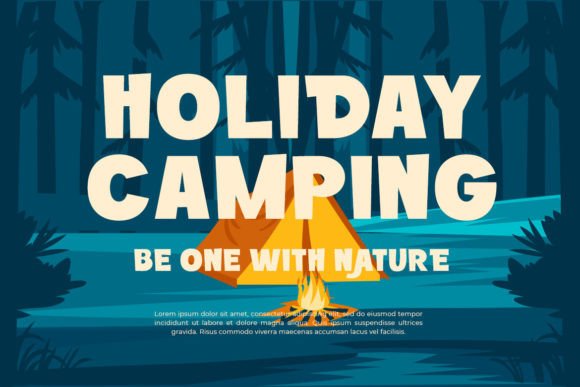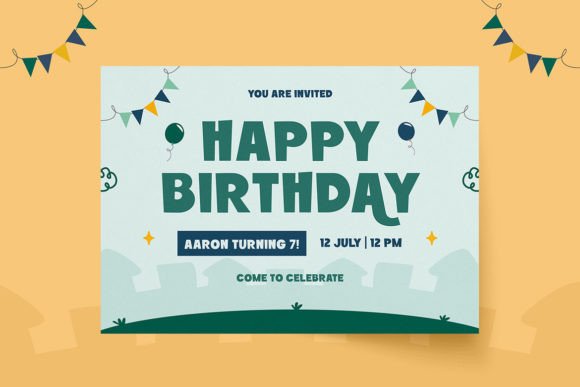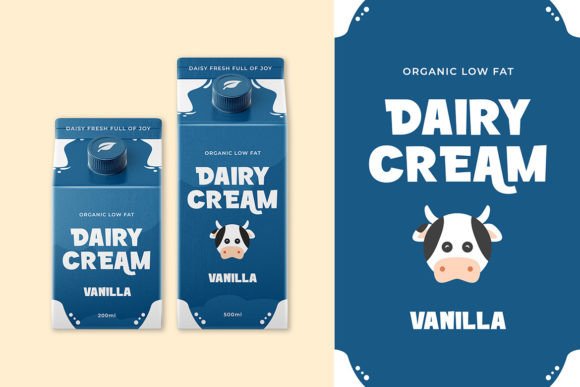
Introduction to Nomadic Font
Have you ever been in the middle of a creative project, pouring your heart and soul into it, only to be held back by the perfect font? That’s where the magic of the Nomadic Font comes in – a game-changing design resource that’s about to revolutionize the way you approach your next project.
Imagine having a font that’s not only visually stunning but also perfectly captures the essence of your brand. With its fun and playful vibes, the Nomadic Font is the perfect addition to any design, whether it’s a logo design, a quote, or even an album cover.
Key Features of Nomadic Font
- Unique, modern font style with a transparent background, ideal for graphic design and digital art.
- Includes a comprehensive character set, supporting multiple languages and script types.
- Designed at high resolution (300 DPI) for optimal print quality and legibility.
- Perfect for use in various creative projects, such as branding, advertising, and editorial design.
- Lightweight and easy to use, making it a great addition to any designer’s toolkit.
Honest Review: Nomadic Font
I recently came across the Nomadic Font and was excited to dive in and see what it has to offer. As a designer, I’m always on the lookout for high-quality design resources that can elevate my creative projects.
- Perfect for creative projects where a unique, stylish font is needed
- May not be suitable for formal or corporate design projects due to its more casual, eclectic feel
- Limited character set compared to other fonts
Overall, I’m impressed with the Nomadic Font. While it may have some limitations, it’s a great addition to any designer’s toolkit. It’s perfect for creative projects where you need a unique, stylish font that will stand out from the crowd.
Tips for Getting the Most Out of the Nomadic Font
To maximize the potential of the Nomadic Font, experiment with different font sizes, colors, and combinations. This will help you achieve a unique and visually appealing design.
The Nomadic Font is ideal for various design projects, including:
- Infographics and charts
- Business cards and stationery
Poppins Font is a modern sans-serif typeface that offers a high-quality design resource for creative projects. It’s ideal for use in headings, titles, and body text, especially in digital design. Poppins Font is available for free download and features a transparent background, making it a great alternative to Nomadic Font for designers.
Compared to Nomadic Font, Poppins Font has a more minimalist and clean design, making it suitable for modern and sleek designs. It’s also highly legible and versatile, making it a great choice for various design projects.
Montserrat Font is a popular sans-serif typeface that offers a high-quality design resource for creative projects. It’s ideal for use in urban and modern designs, and its transparent background makes it a great choice for designers who want to add a touch of sophistication to their projects. Montserrat Font is available for free download and is highly versatile, making it a great alternative to Nomadic Font.
Compared to Nomadic Font, Montserrat Font has a more urban and edgy design, making it suitable for designs that require a bold and modern feel. It’s also highly legible and easy to read, making it a great choice for various design projects.